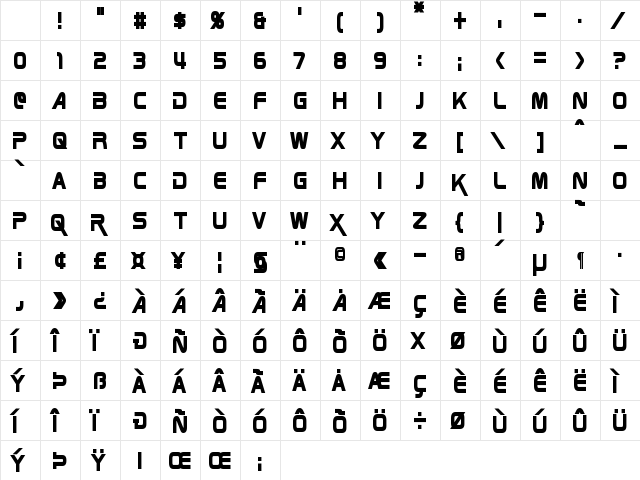
Zebulon Condensed is a composed and adaptable typeface that performs quietly and consistently across a wide range of design contexts. Its bold stroke weight gives it real presence on the page. Its narrow stance lets it pack a punch even in space-constrained designs.